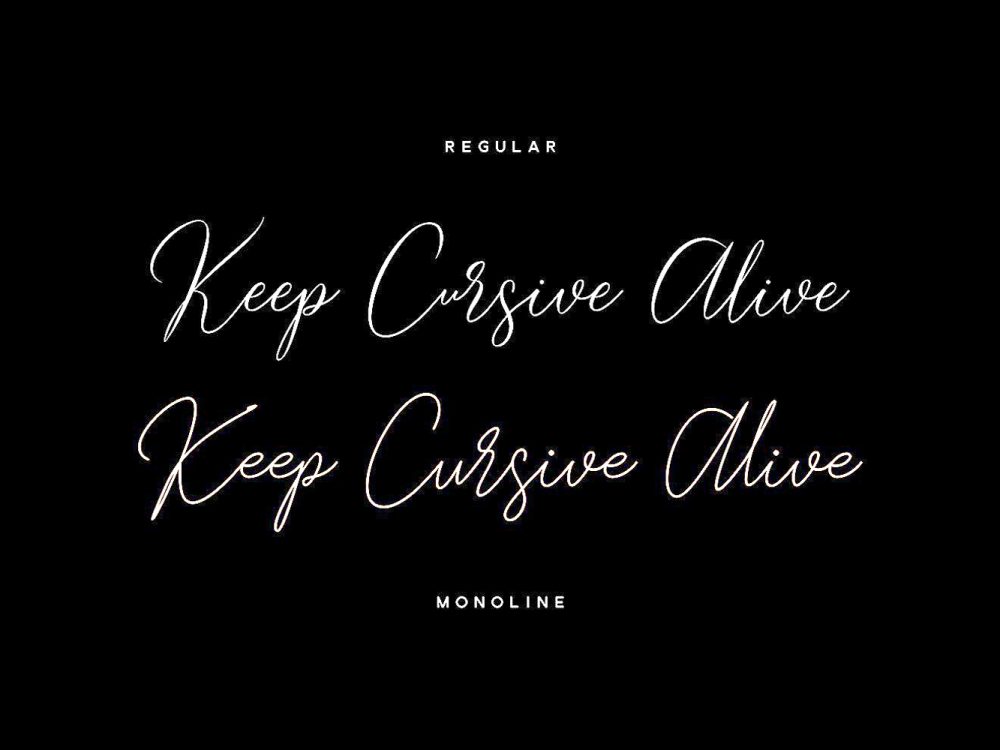
Gredom Free Font
Gredom Free Font is a scripted handwritten font that features a modern contemporary style and calligraphic style. This font is well suited for various design projects that require a handwritten script font. You can use this font to create interesting and memorable posters, wedding invitations, cards, branding, flyers, and more. If you like it don’t forget to check out the full version.